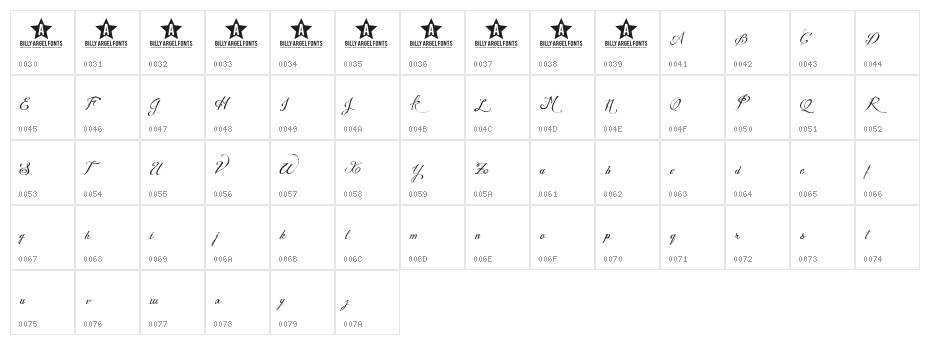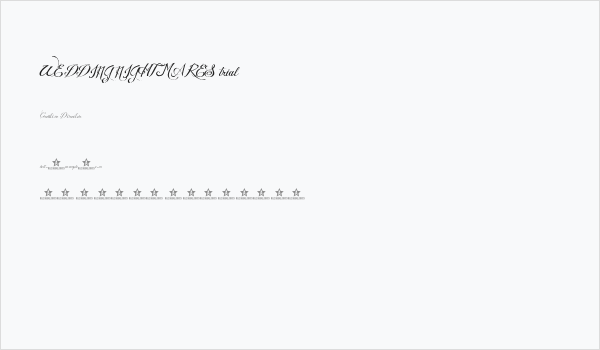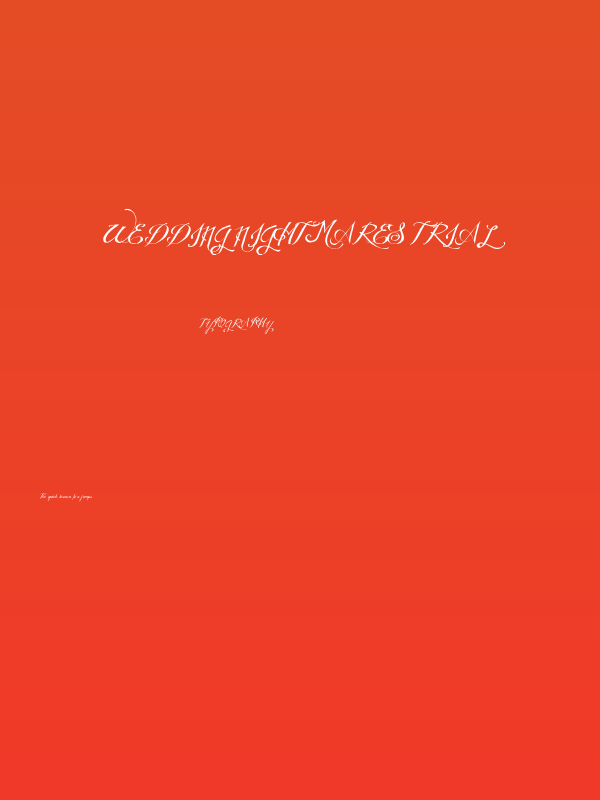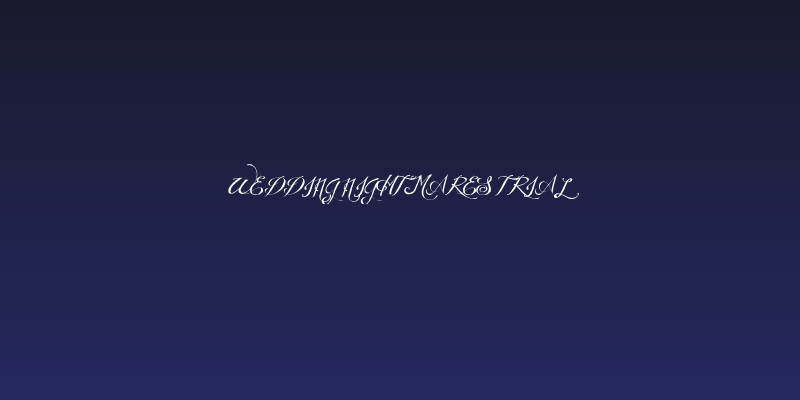
WEDDING NIGHTMARES trial Font
WEDDING NIGHTMARES trial Description
This font features an elegant and intricate script style, characterized by its flowing, cursive letters with elaborate swirls and flourishes. The uppercase letters are particularly ornate, with extended strokes and decorative loops, giving a sense of sophistication and artistic flair. The lowercase letters maintain a consistent style, though they are slightly less embellished, ensuring readability while retaining the overall decorative theme. The font's design suggests a hand-drawn quality, reminiscent of calligraphy, making it suitable for formal and creative applications. The characters are well-spaced, allowing each letter to stand out while maintaining a cohesive look. This font exudes a sense of elegance and romance, making it ideal for special occasions.
| Use Case | Headlines, Invitations, Decorative text |
| Proposed Projects | Ideal for wedding invitations, greeting cards, elegant branding, and decorative headings. |